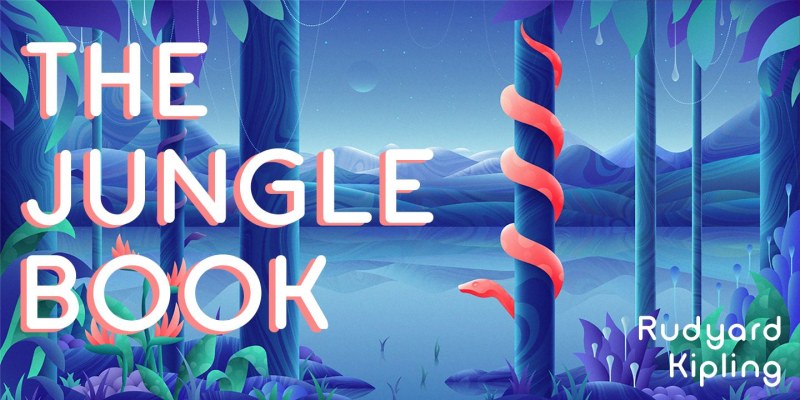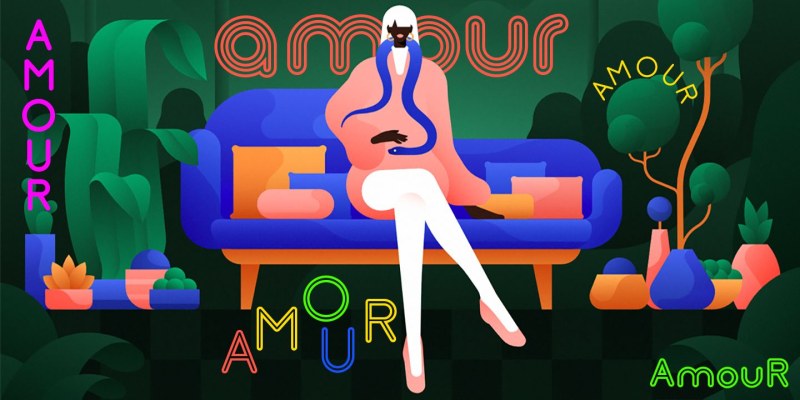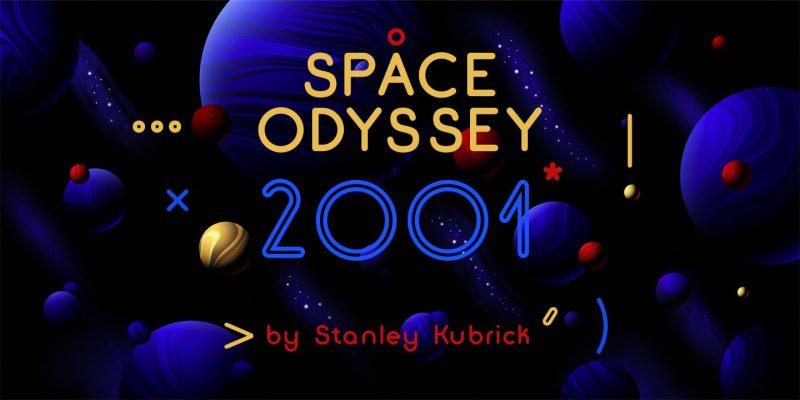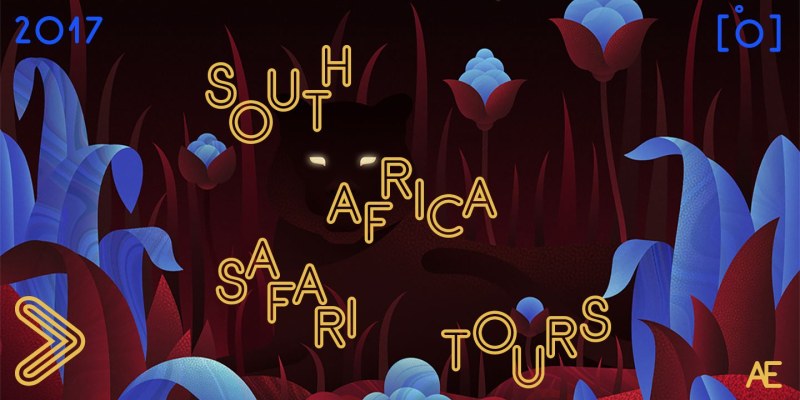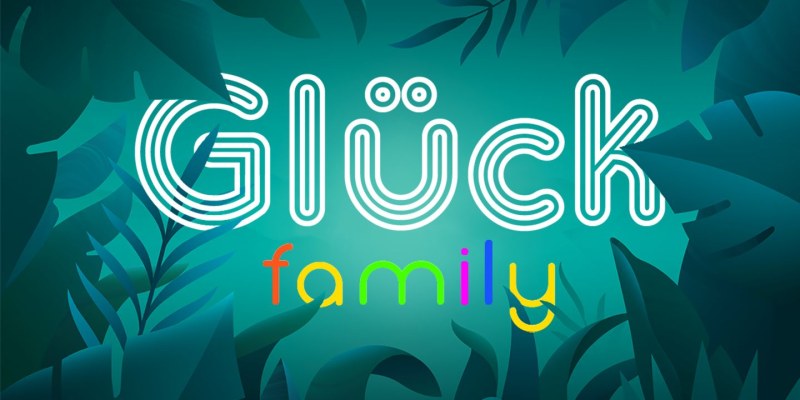
Gluck Font Family
Gluck family is based on sans serif font. It fits to product design, any commercial and decorations.
Glück family supports european languages.
It includes 5 styles:
• regular
• stroked
• bold
• bold stroked
• stripes
Where Gluck Font Family works best
Gluck Font Family is built for size: event posters, hero headlines and billboard-style layouts.
High contrast display type like Gluck Font Family reads instantly in thumbnails and motion graphics.
What is Gluck Font Family good for?